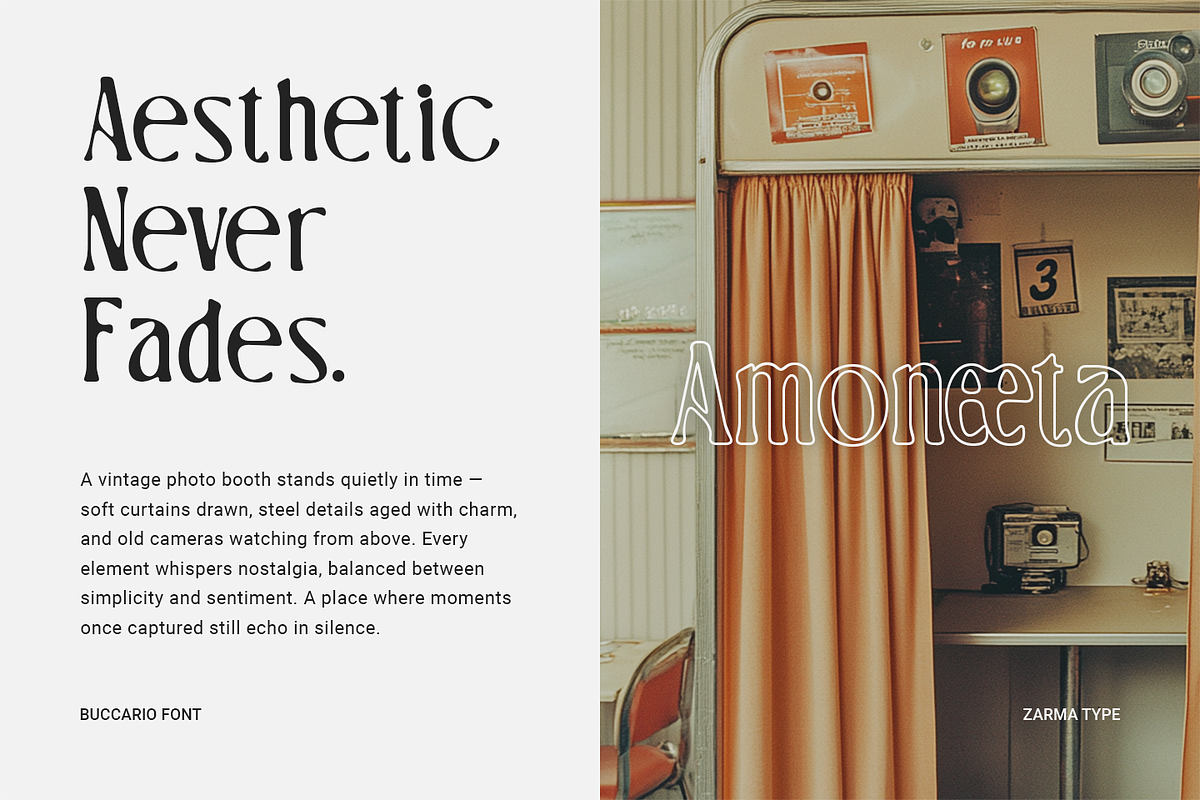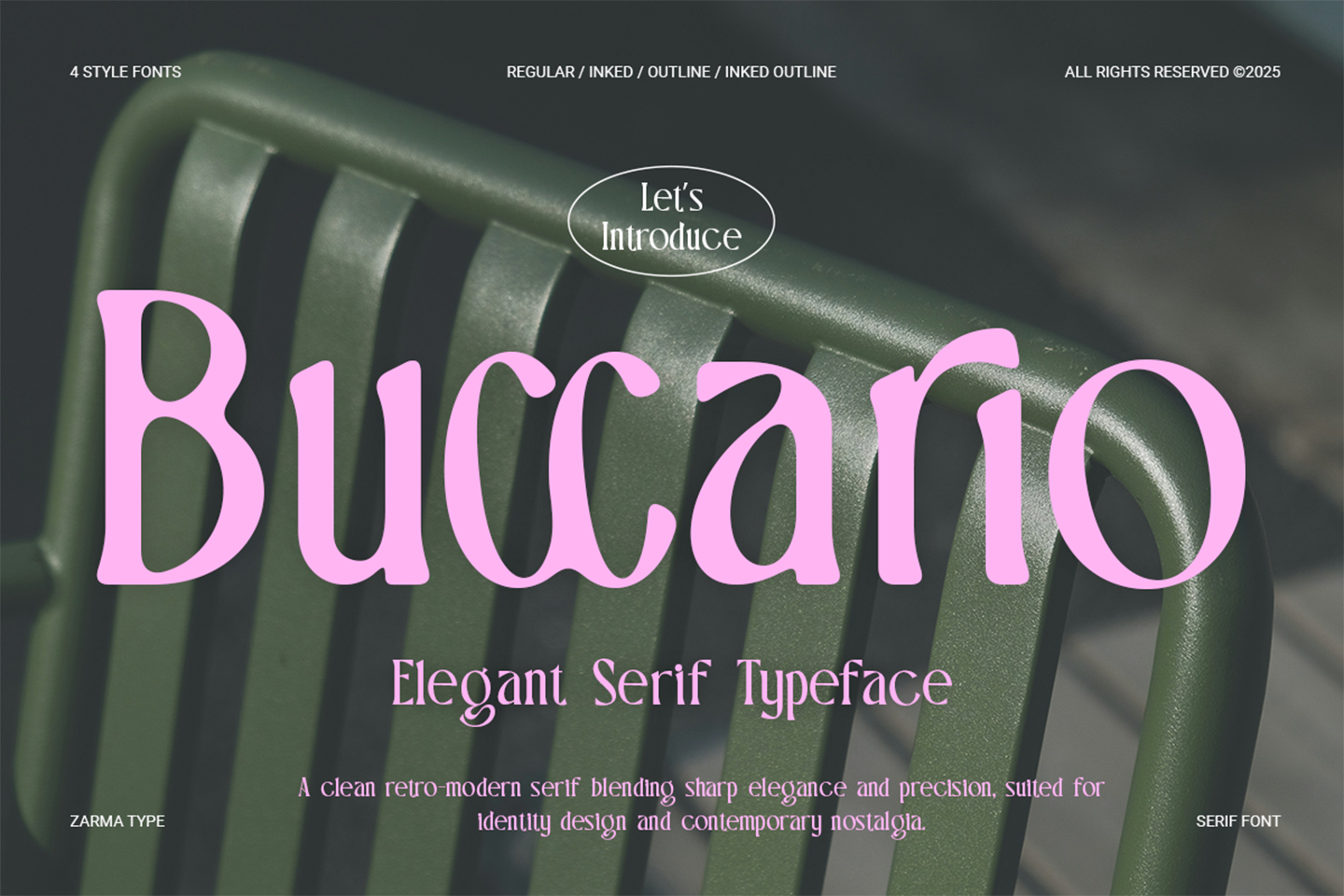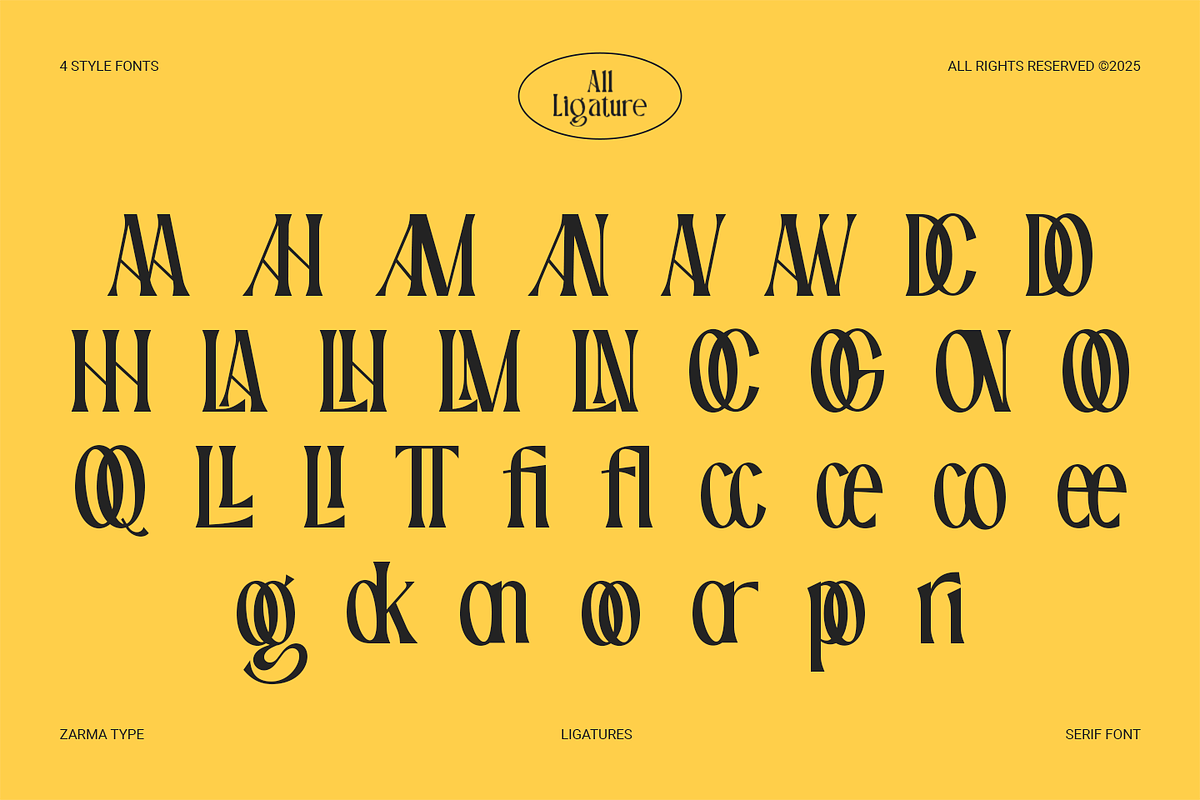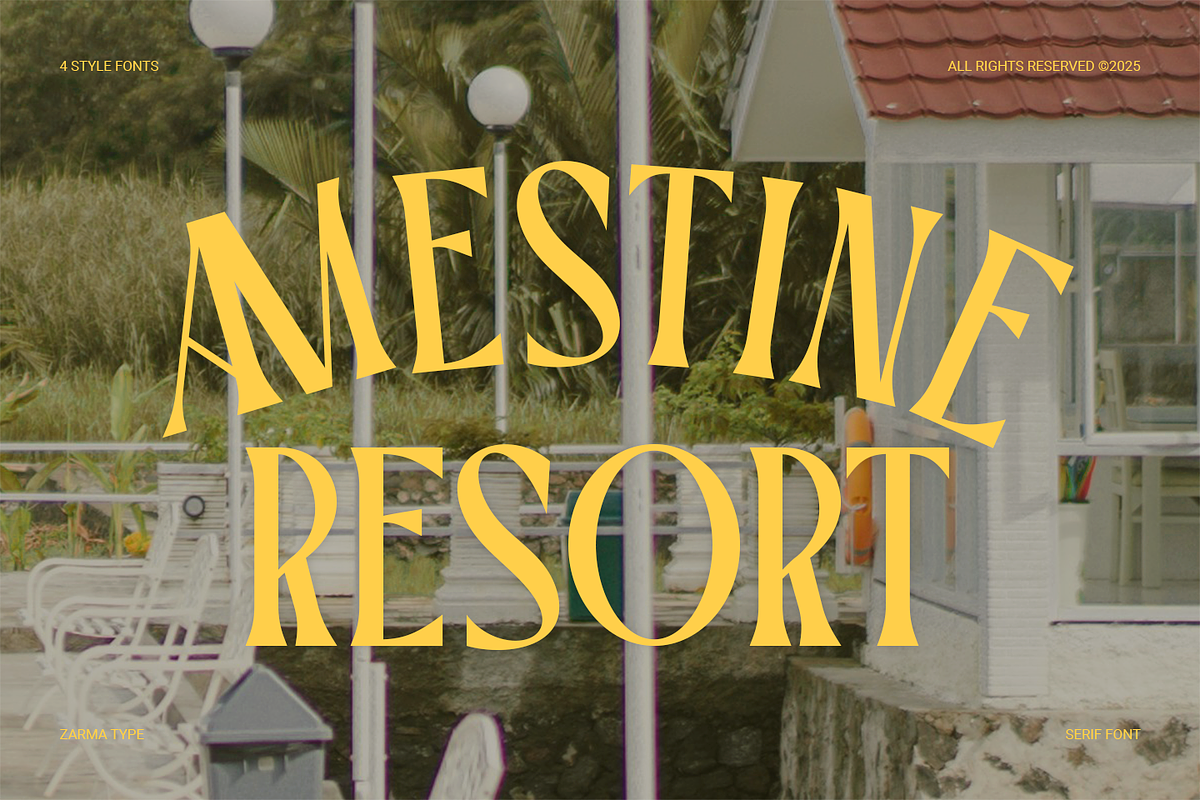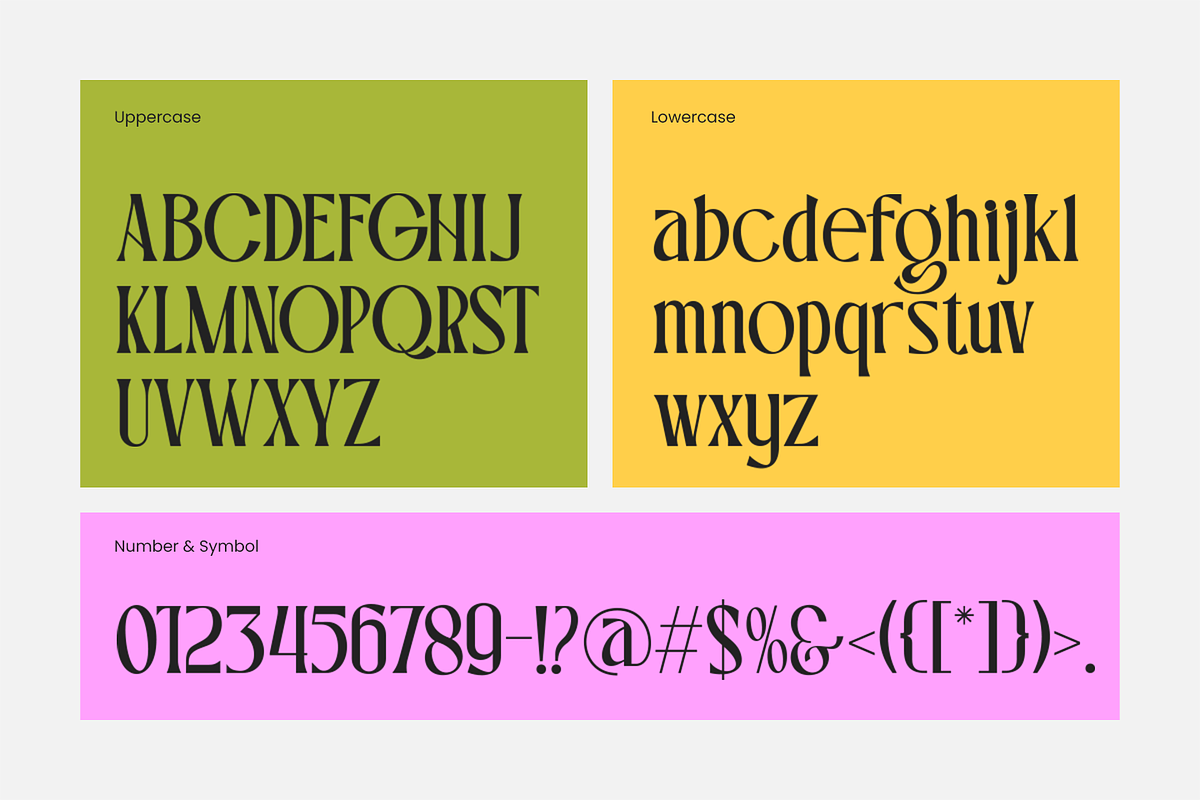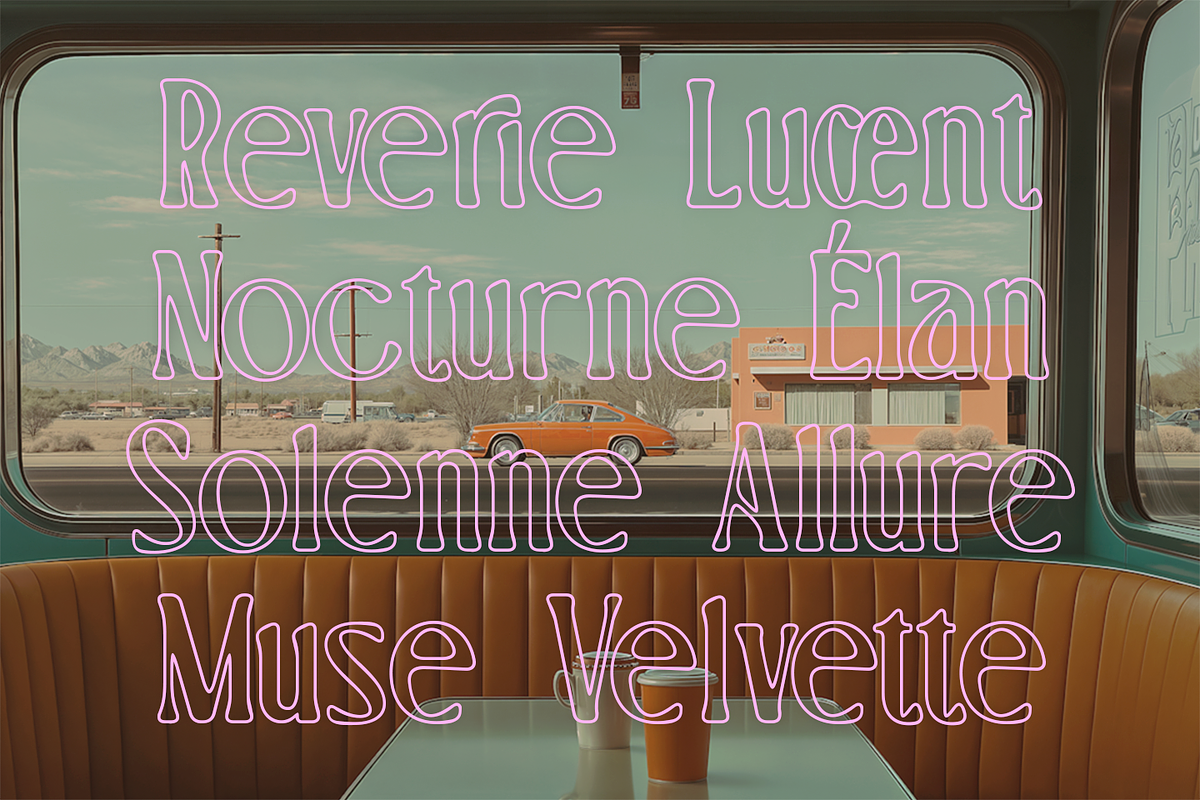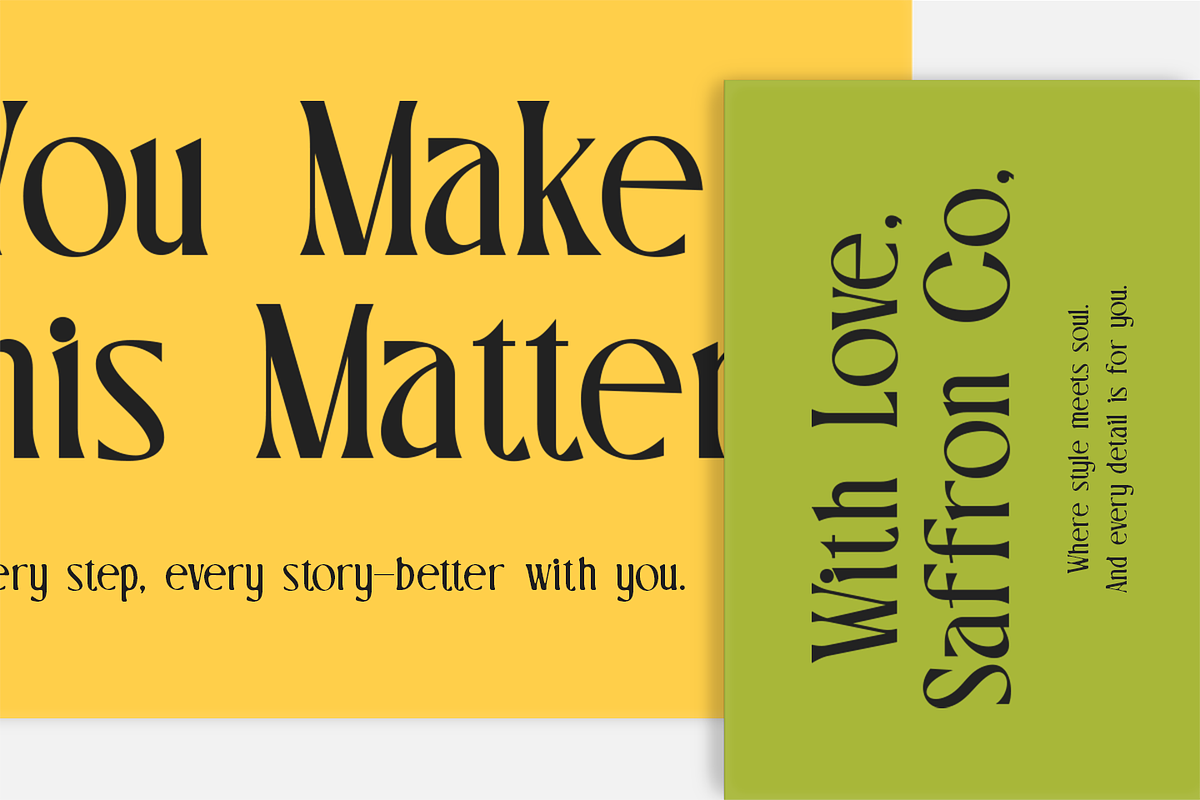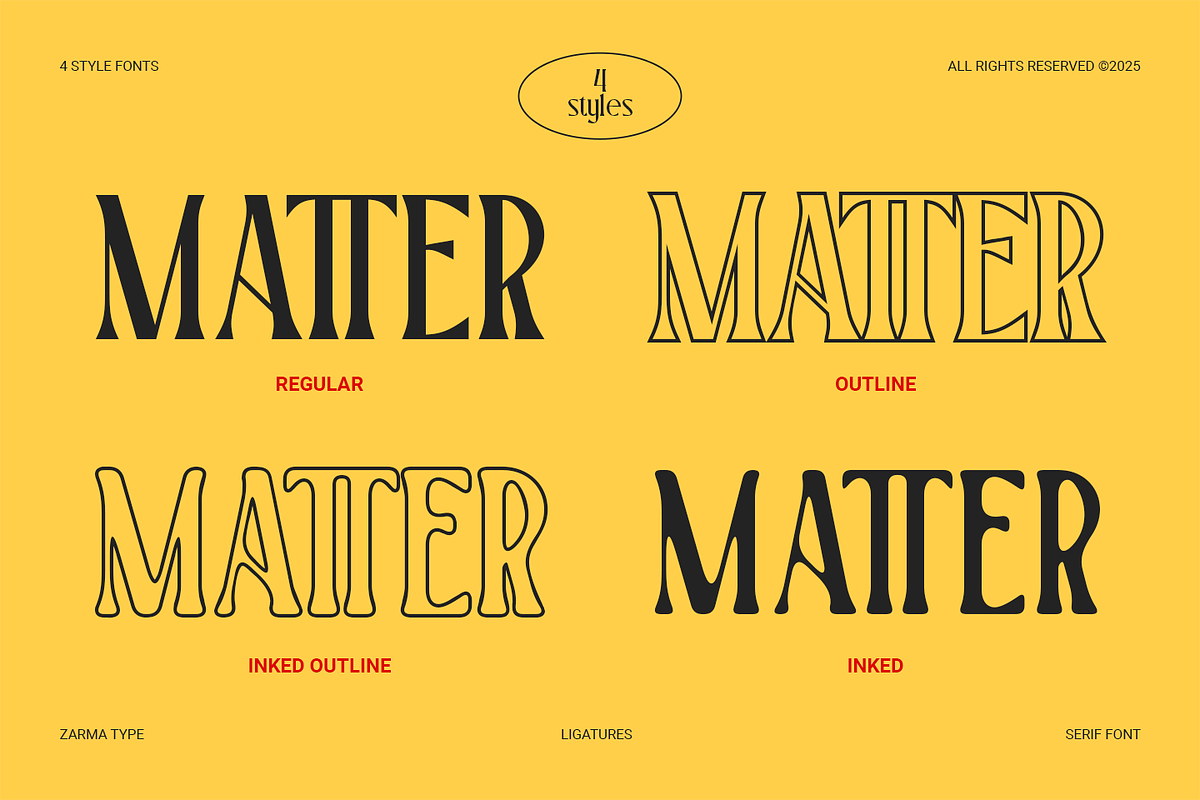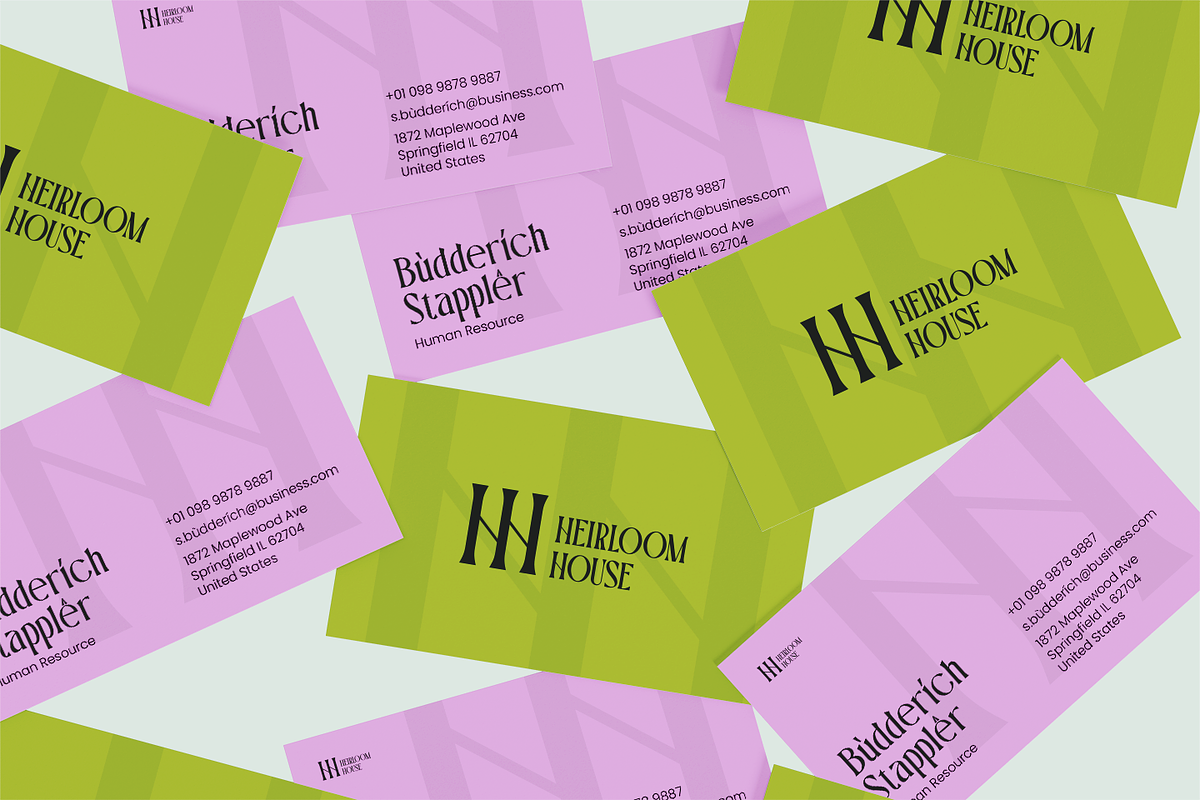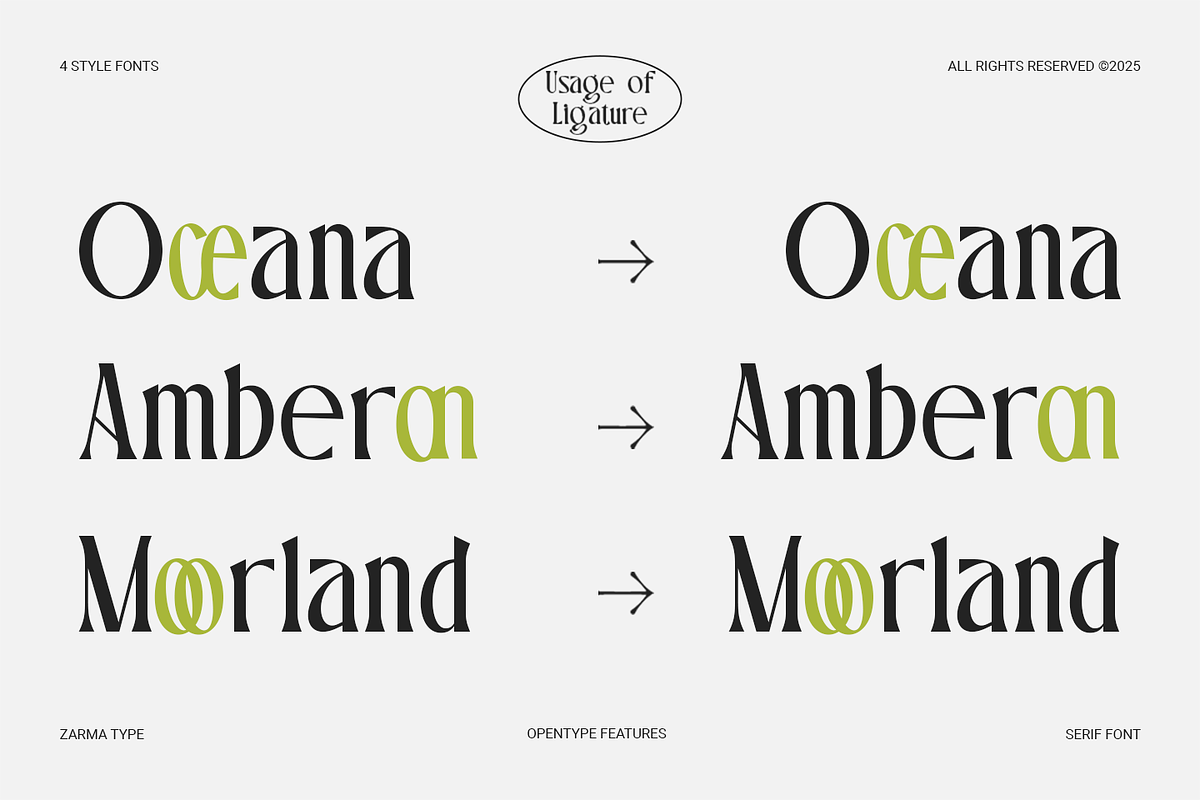
Buccario - Elegant Serif Font
Buccario is an elegant serif typeface that brings a fresh twist to retro and vintage design trends. With its sophisticated curves, reversed contrast details, and high-legibility structure, Buccario elevates every layout with a sense of refined playfulness. This typeface draws attention effortlessly, making it ideal for branding projects that demand both beauty and personality. The unique shape of each character invites designers to explore creativity without sacrificing clarity.
Whether used in bold headlines, nostalgic packaging, or stylish editorial spreads, Buccario offers strong character with a soft charm. Its versatility is showcased through various alternates, ligatures, and decorative touches that give you room to experiment. Designed with contemporary aesthetics in mind, Buccario seamlessly merges classic elegance with modern appeal.
Perfect for: Logo design, brand identity, packaging, boutique editorial, magazine headers, retro posters, and display typography.
- 4 Styles (Regular, Inked, Outline, Inked Outline)
- Uppercase and Lowercase Character Set
- Numbers and Punctuation
- Standard & Discretionary Ligatures